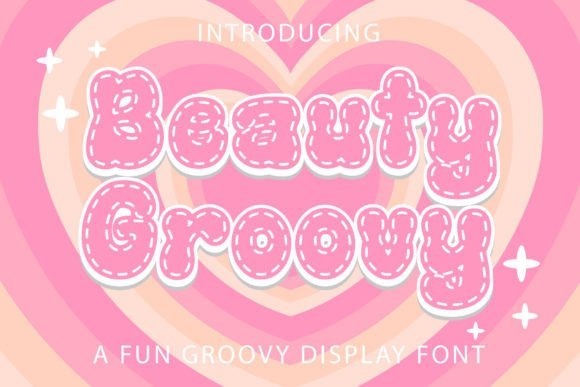
Adding a Groovy Touch to Your Creations
Have you ever been working on a design project, and suddenly, you just can’t seem to get the right vibe? The colors are great, the layout is perfect, but something’s missing? That’s when I know it’s time to bring in the Beauty Groovy Font. This stunning retro display font is a game-changer for designers looking to add a touch of whimsy and romance to their projects.
Beauty Groovy Font is the perfect solution for designers who want to create eye-catching headlines, add a playful twist to greeting cards, or simply give their designs a unique, groovy feel. Its versatility and stylish design make it a valuable addition to any creative project. Whether you’re a seasoned designer or just starting out, Beauty Groovy Font is sure to bring a smile to your face and a touch of magic to your work.
Beauty Groovy Font Key Features
- Font Family: A unique, modern sans-serif font designed to evoke a sense of fun and playfulness.
- Unique Characteristics: The font features a distinctive, hand-drawn aesthetic with subtle flair and flair-like details, adding a touch of whimsy to text.
Beauty Groovy Font Review
When I first laid eyes on the Beauty Groovy Font, I was immediately drawn to its funky and playful vibe ✨. The font is perfect for any project that needs a touch of whimsy and fun. The curves and lines of the font are smooth and well-designed, making it a great choice for titles and headings.
The font also comes with a wide range of styles, from bold to light, and even some fun variations like script and cursive ✨. This means that you can use the font in a variety of contexts and it will always look great.
While the Beauty Groovy Font is a great addition to any designer’s toolkit, there are a few limitations to be aware of ⚠️:
- The font may not be suitable for all types of content, particularly for more formal or professional projects.
- The font may not be as readable at smaller font sizes, so it’s best to use it for titles and headings.
Overall, I would give the Beauty Groovy Font 4 out of 5 stars. It’s a fun and playful font that is perfect for any project that needs a touch of whimsy and fun. Just be aware of the limitations and use it accordingly.
For the best results, use the Beauty Groovy Font in conjunction with other fonts that have a similar feel and style. Experiment with different font sizes, colors, and combinations to achieve the desired effect.
The Beauty Groovy Font is well-suited for use in design projects that require a fun, playful, and energetic vibe. Some common use cases include:
- Social media graphics and ads
- Party invitations and event materials
- Children’s book illustrations and design
- Music festival and concert promotional materials
Playfair Display is an elegant and luxurious serif font, perfect for headings and titles. It’s ideal for creating a high-end feel in fashion, luxury, and fine art designs. Compared to Beauty Groovy Font, Playfair Display has a more classic and sophisticated look, making it suitable for formal and upscale projects.
Great Vibes is a modern and stylish script font, ideal for creating a fun and playful atmosphere in designs. It’s perfect for headings, titles, and quotes, and is suitable for various industries such as fashion, entertainment, and lifestyle. Compared to Beauty Groovy Font, Great Vibes has a more carefree and laid-back vibe, making it suitable for casual and creative projects.
Can I customize the Beauty Groovy Font?
Does Beauty Groovy Font support Unicode characters?
Yes, the Beauty Groovy Font supports a wide range of Unicode characters, including Latin, Cyrillic, and Greek alphabets. This allows for global compatibility and use in various languages.